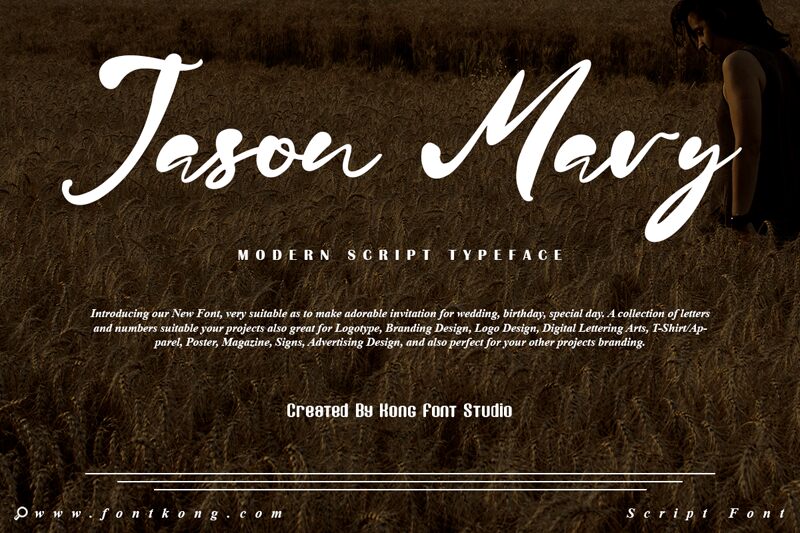
Jason Mary
Jason Mary is a stunning calligraphy font designed by Kong Font that adds elegance and sophistication to any project. With its flowing curves and intricate details, this semi-bold typeface is perfect for wedding invitations, greeting cards, logos, and branding projects. The font's unique width makes it suitable for both headlines and body text, providing versatility in design options. Whether you're creating an elegant wedding invitation or a luxurious brand identity, Jason Mary will make your project stand out with its timeless beauty. Try it today and elevate your designs to the next level!